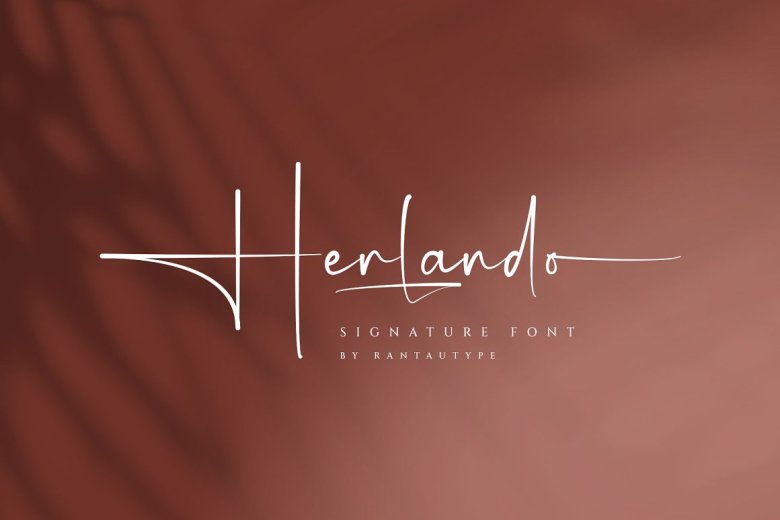
Herlando Font
Hello Ladies and Gentlemen! I am pleased to introduce “Herlando”, my latest signature font. With its professional look and feel, elegant features such as luxuriousness, premium-ness, legibility, readability and stylishness – Herlando makes an excellent choice for professional use as it is feminine but girly at the same time!
Herlando can be used to watermark photos, create signatures or logos, quote album covers, magazines and business cards and much more. With both ligature and regular versions to suit every project – Herlando will help you produce high-level work!
Herlando Signature Font